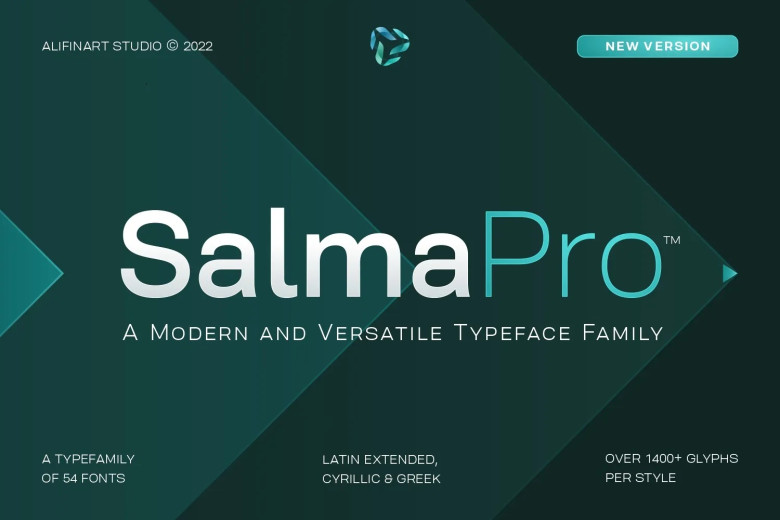
Salma Pro Font
Salma Pro is an elegant and contemporary sans serif font featuring an eye-catching design. As an upgraded version of its predecessor, Salma Alfasans, Salma Pro offers more styles and features.
Salma Pro is an original design created with great passion and care, ideal for logos, branding projects and other creative design endeavors. Salma Pro remains legible at any size making it suitable for headlines as well as body text.
Salma Pro Sans Serif Font